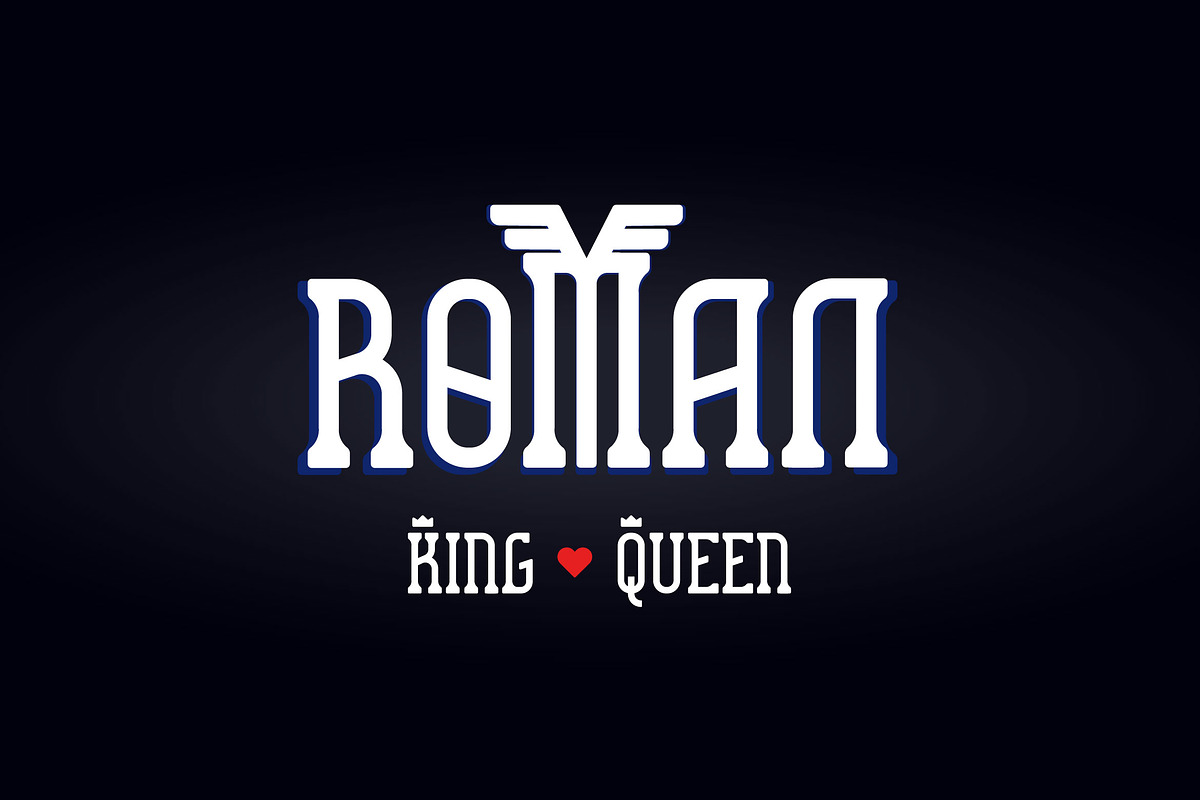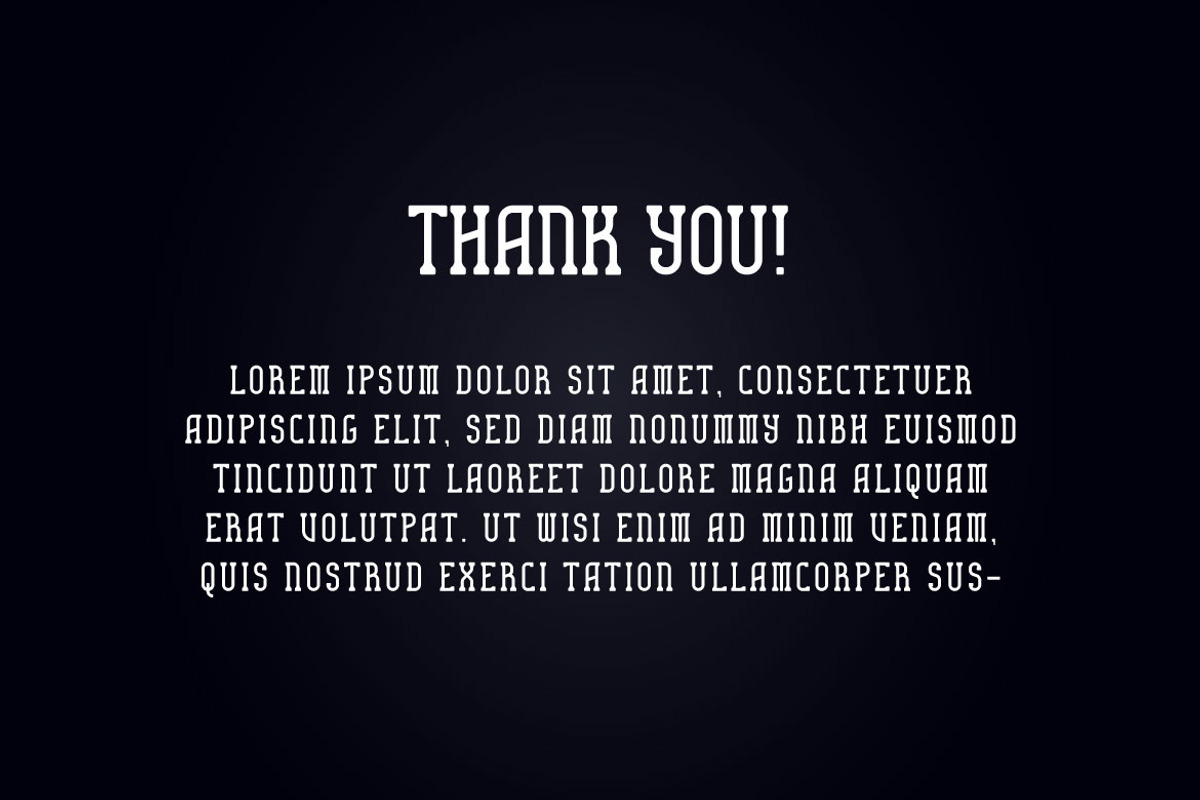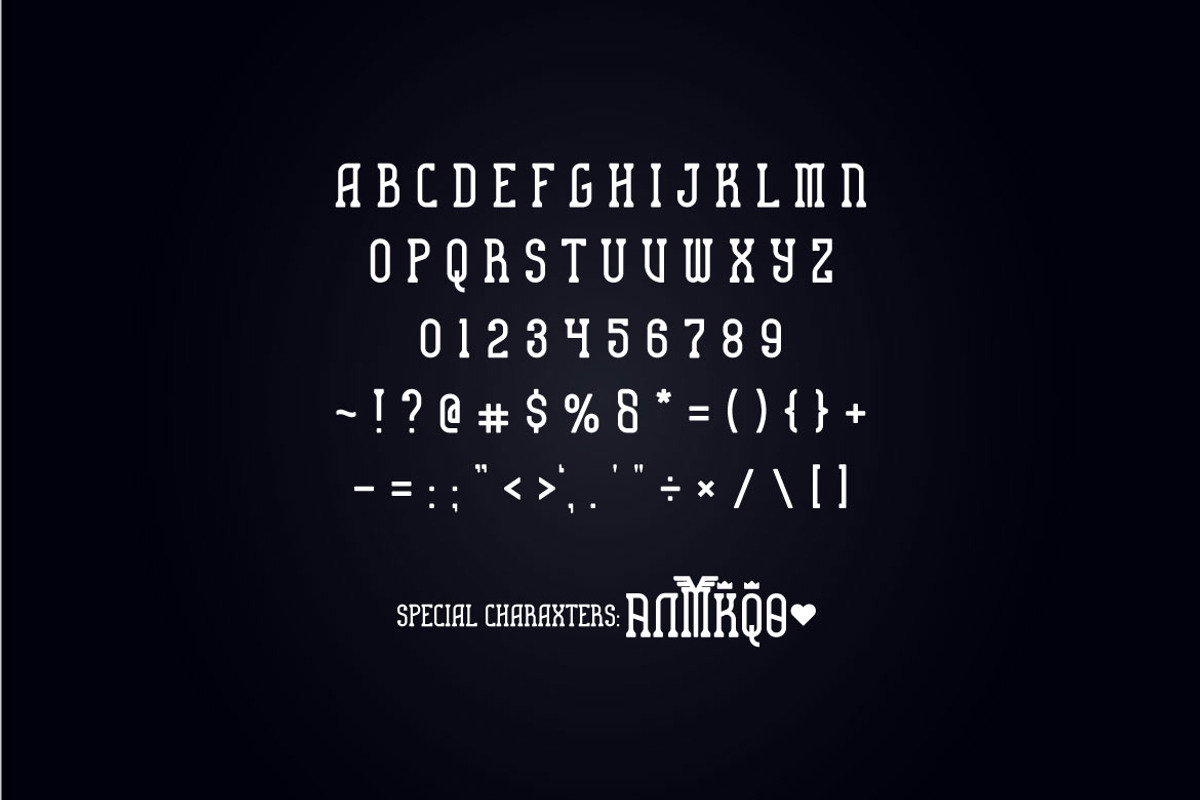
Roman - Decorative Display Font
If you are looking for a display font with some special character, meet ROMAN
Roman is perfect for any works, such as your poster, card, book title, headline of news, banner, flyer, stationery and many more. It also can be used in Any scale work.